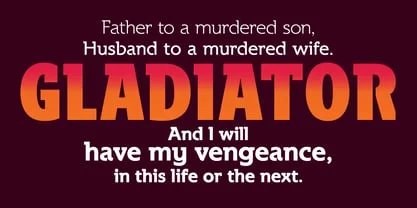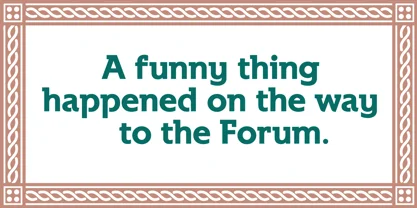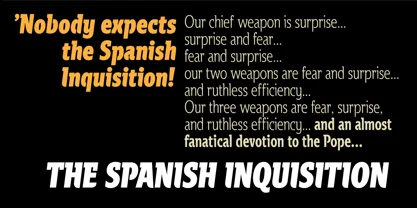
Spartacus Font
A trained lettering artist and a craftsman who used to make letter shapes strictly by hand, Alan Meeks could be considered a bit of a dinosaur – but only because designers like him are a truly rare find. “I stayed at my first design studio for five years,” he said in his Creative Characters interview. “Obviously, drawing and cutting typefaces all day led to me developing typefaces of my own. My first font design was called Virgin Roman, appropriately enough, which is still around somewhere. In 1974 I joined Letraset.” At Letraset, he helped to build a huge type library designed for dry transfer sheets, a democratic pre-personal-computer system that allowed everyone to set display type by rubbing single letters onto paper. “Up to that point all the new designs were sourced from submissions from all over the world,” he said. “Aside from a few exceptions, the quality was generally inferior and although often original, not really typographically sound enough. So we set out to produce the kind of fonts we felt the market needed, seeking and commissioning fonts from established designers.” His contributions to Letraset’s pre-digital typeface collection was substantial, and many of his typefaces got a second life as part of the ITC, Letraset and Linotype digital libraries. His body of work for the company shows tremendous variety in a wide breadth of styles. “The variety of my designs came from necessity. In my early days at Letraset there were relatively few designs available compared to today, so my job was to create a library of designs and styles, to fill as many gaps in style as possible and to create trends as well as follow them.” His lettering talent extends beyond the limits of type design; his work in branding and packaging proves that. “Whilst I love creating new letterforms and building up a new design in words (I always work in words initially and look at crafting individual letters later) once the basic alphabet and numerals are done, producing the 80 or so incidental characters is tedious and then going through five other weights, italics and condensing can become mind-numbing. The beauty of logos and packaging is that you can see the final result in days or weeks whereas a finished font family can take over a year.”